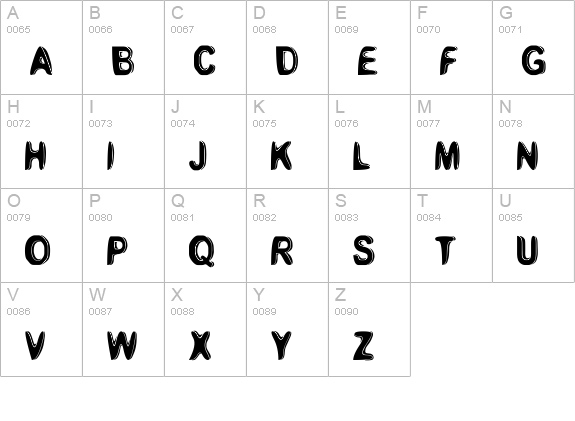
boomerang monkey deluxe. Font Details
Introducing the Boomerang Monkey Deluxe font – a whimsical and playful typeface that will add a touch of fun to your design projects. This unique font features quirky curves and loops reminiscent of a boomerang in flight, making it perfect for eye-catching headlines, posters, and branding materials. The Boomerang Monkey Deluxe font is freely available to download at FontsMarket.com, where you can easily access this delightful typeface and bring a sense of charm and creativity to your creations. With its bold and dynamic appearance, this font is sure to make a lasting impression and stand out from the crowd. Whether you're designing a children's book, crafting a logo for a playful brand, or simply looking to add a touch of whimsy to your designs, the Boomerang Monkey Deluxe font is the perfect choice. Download it today and unleash your creativity with this delightful and engaging typeface.